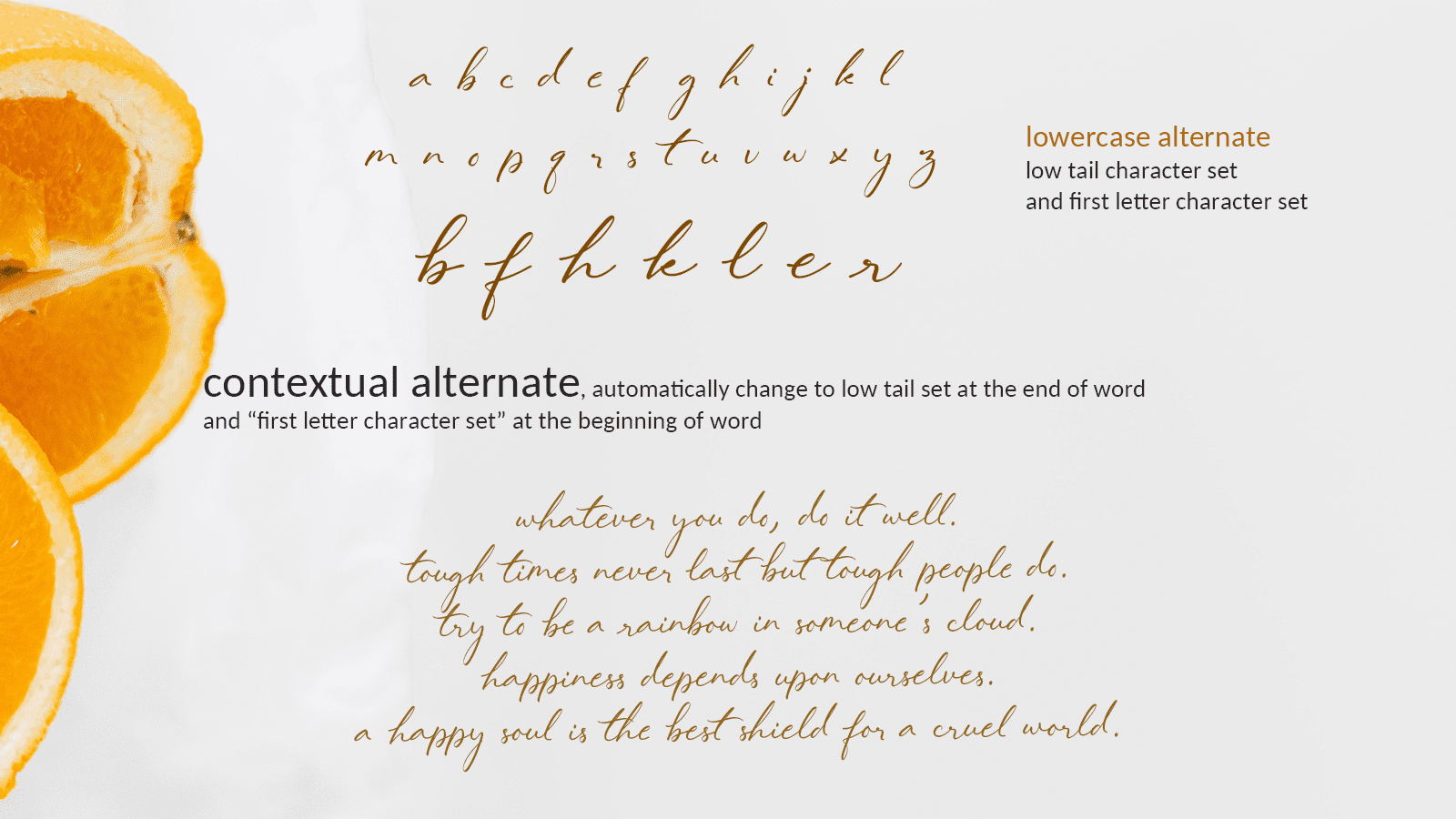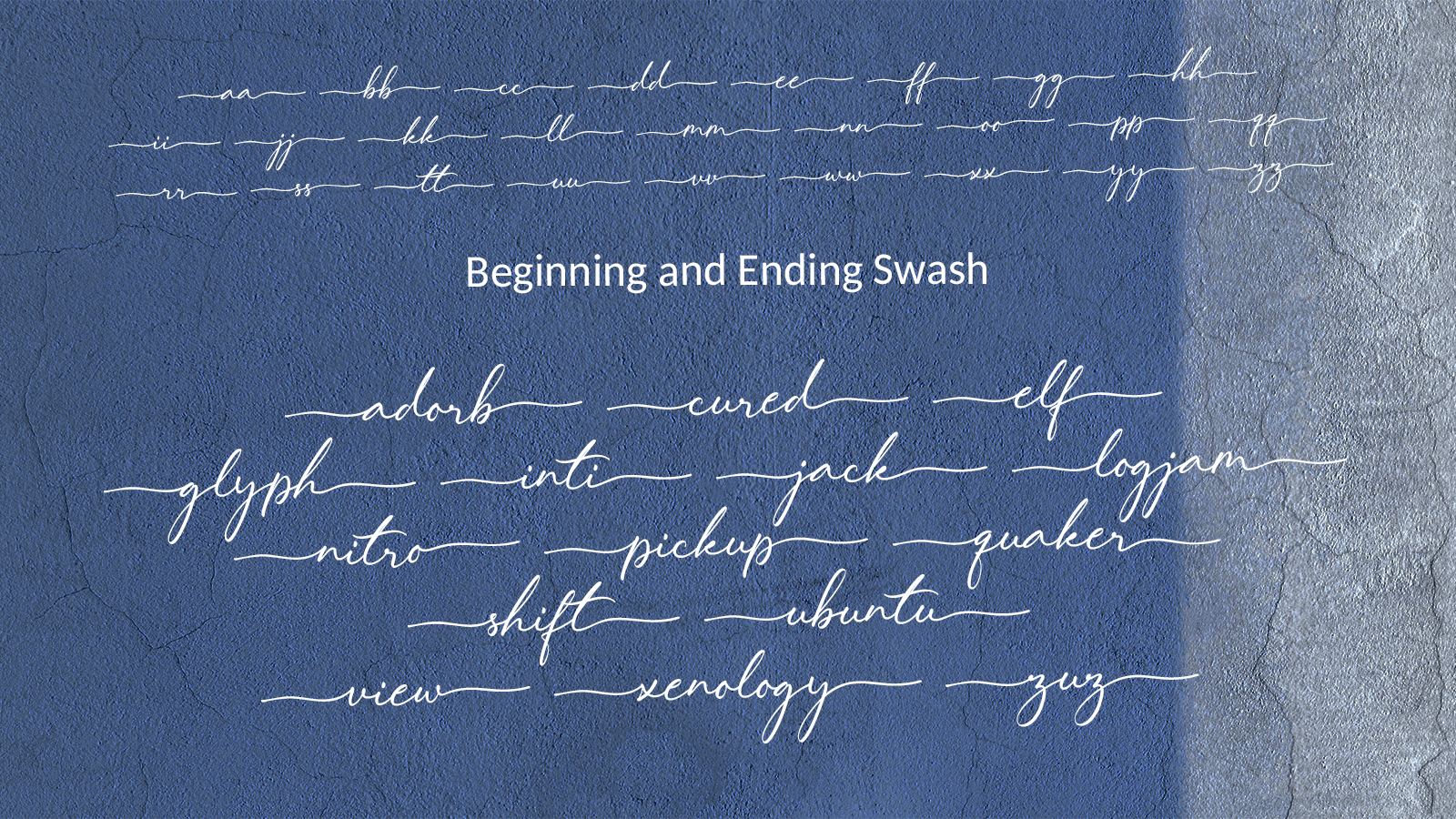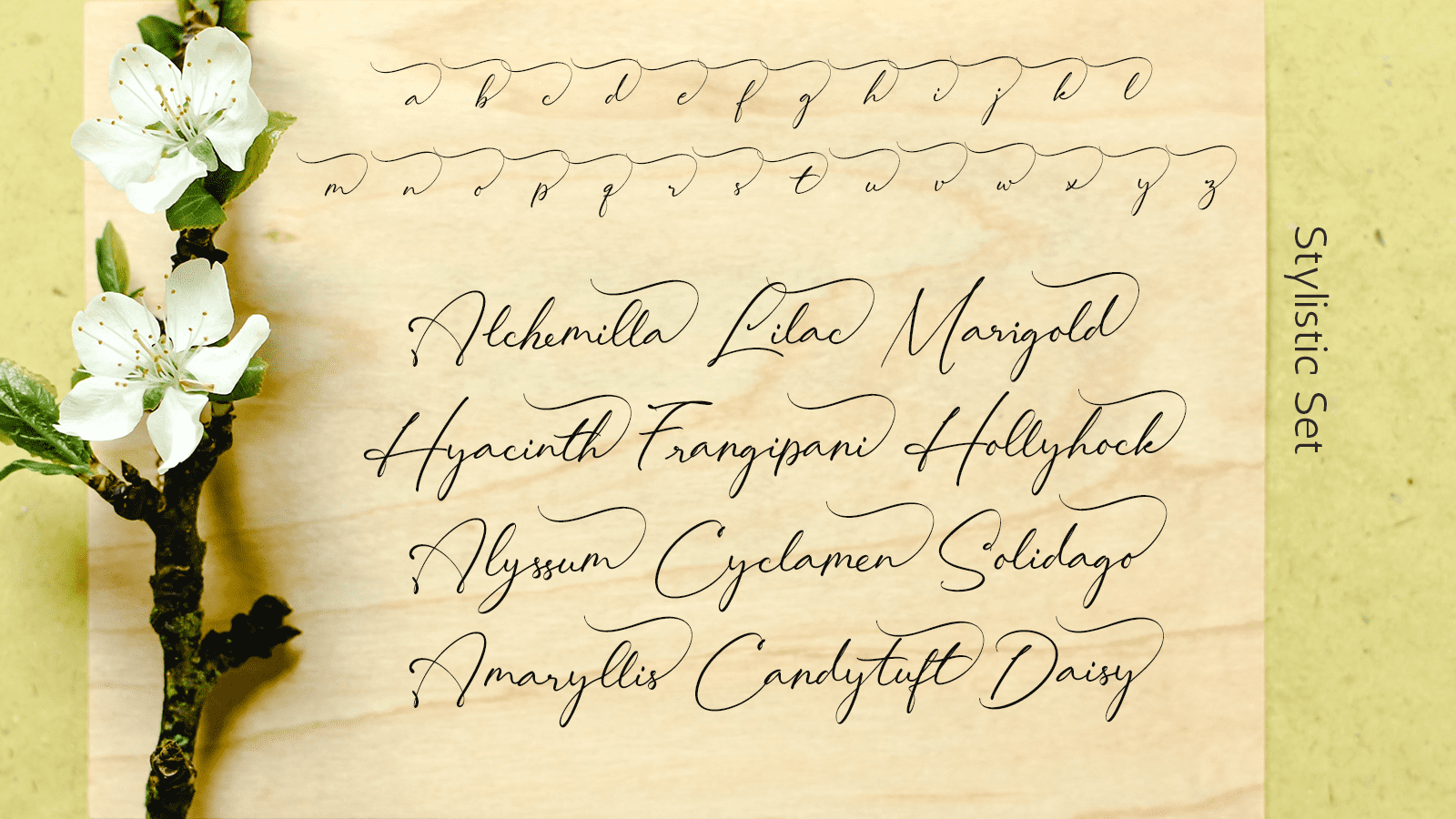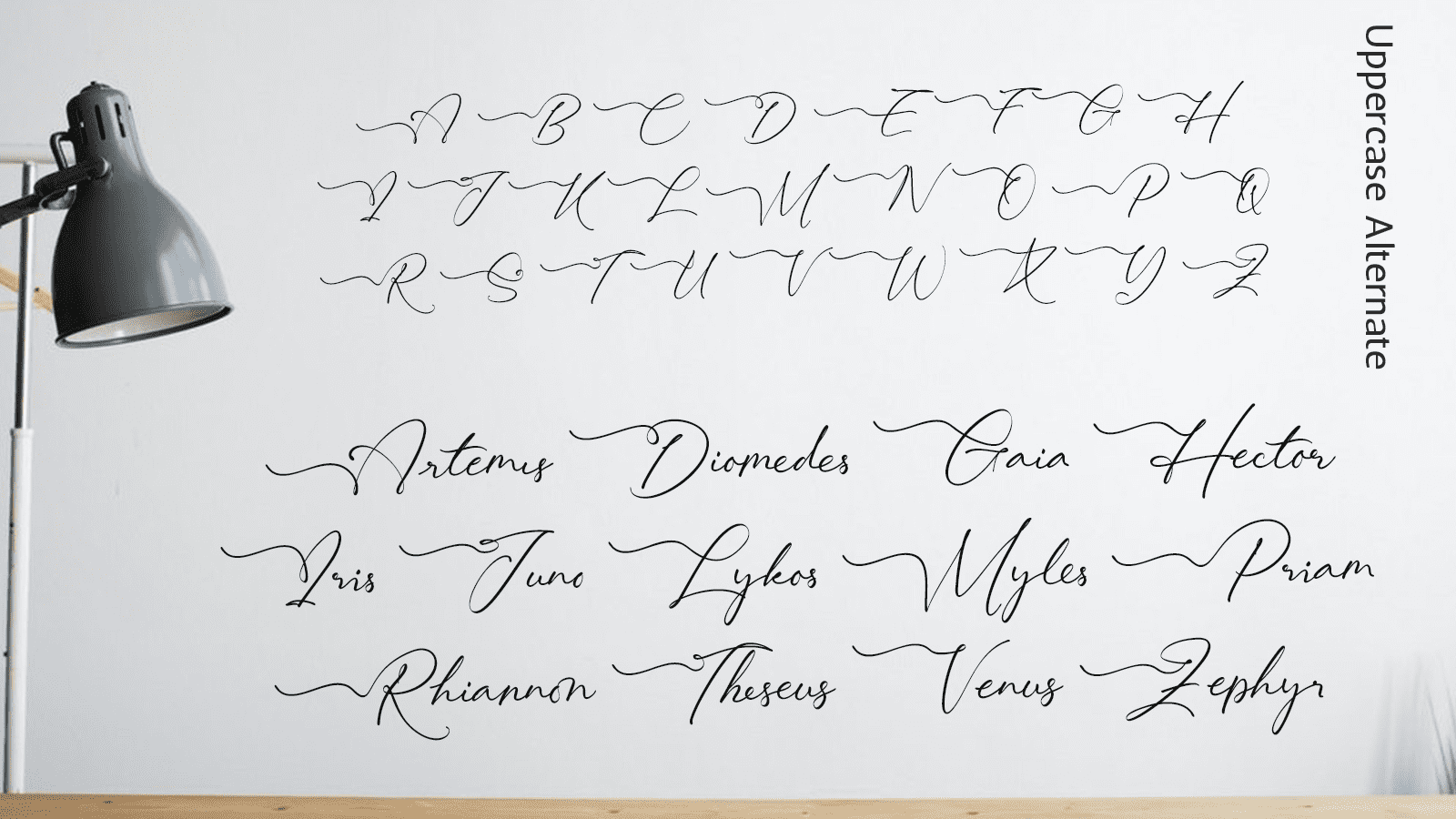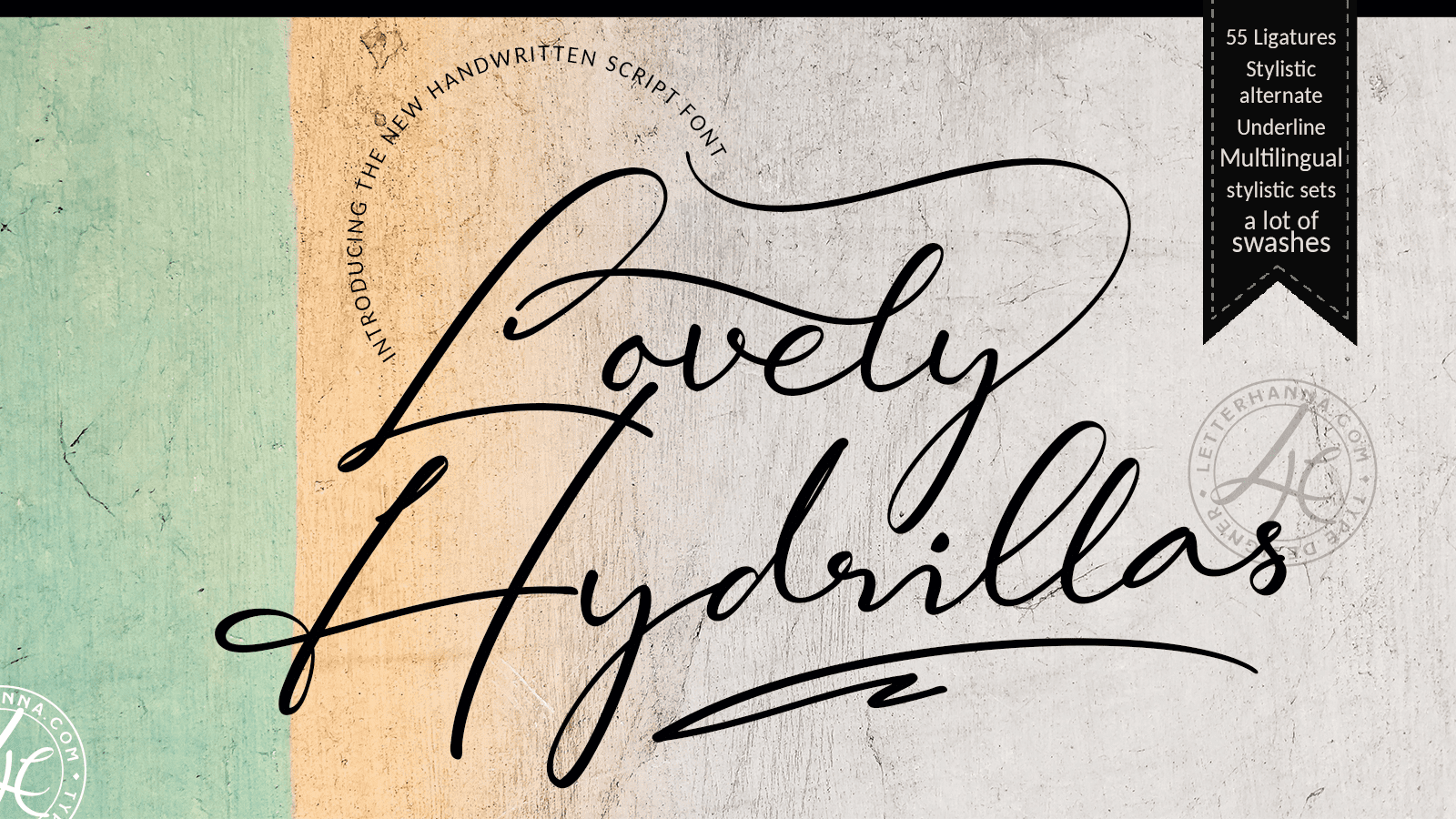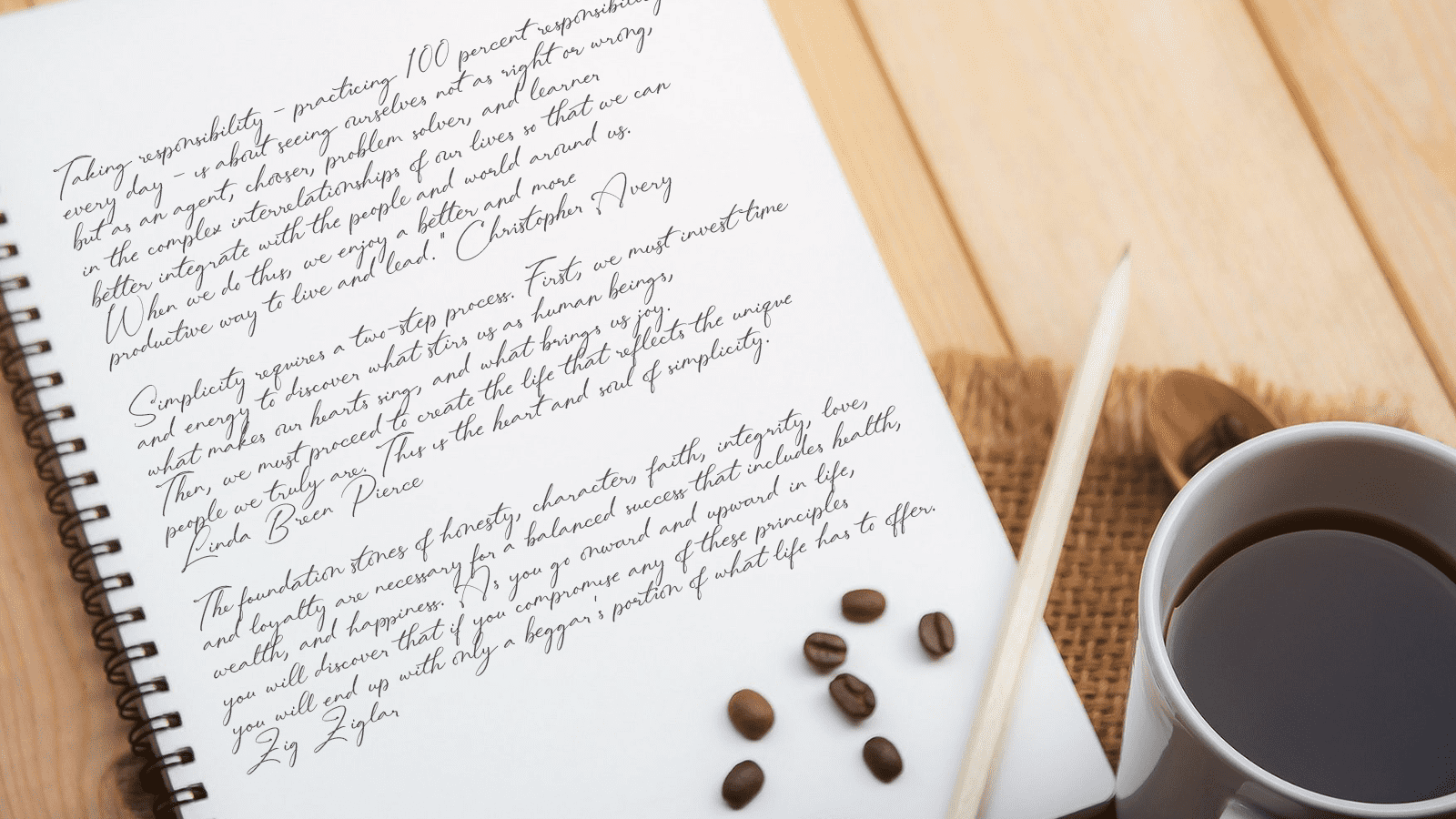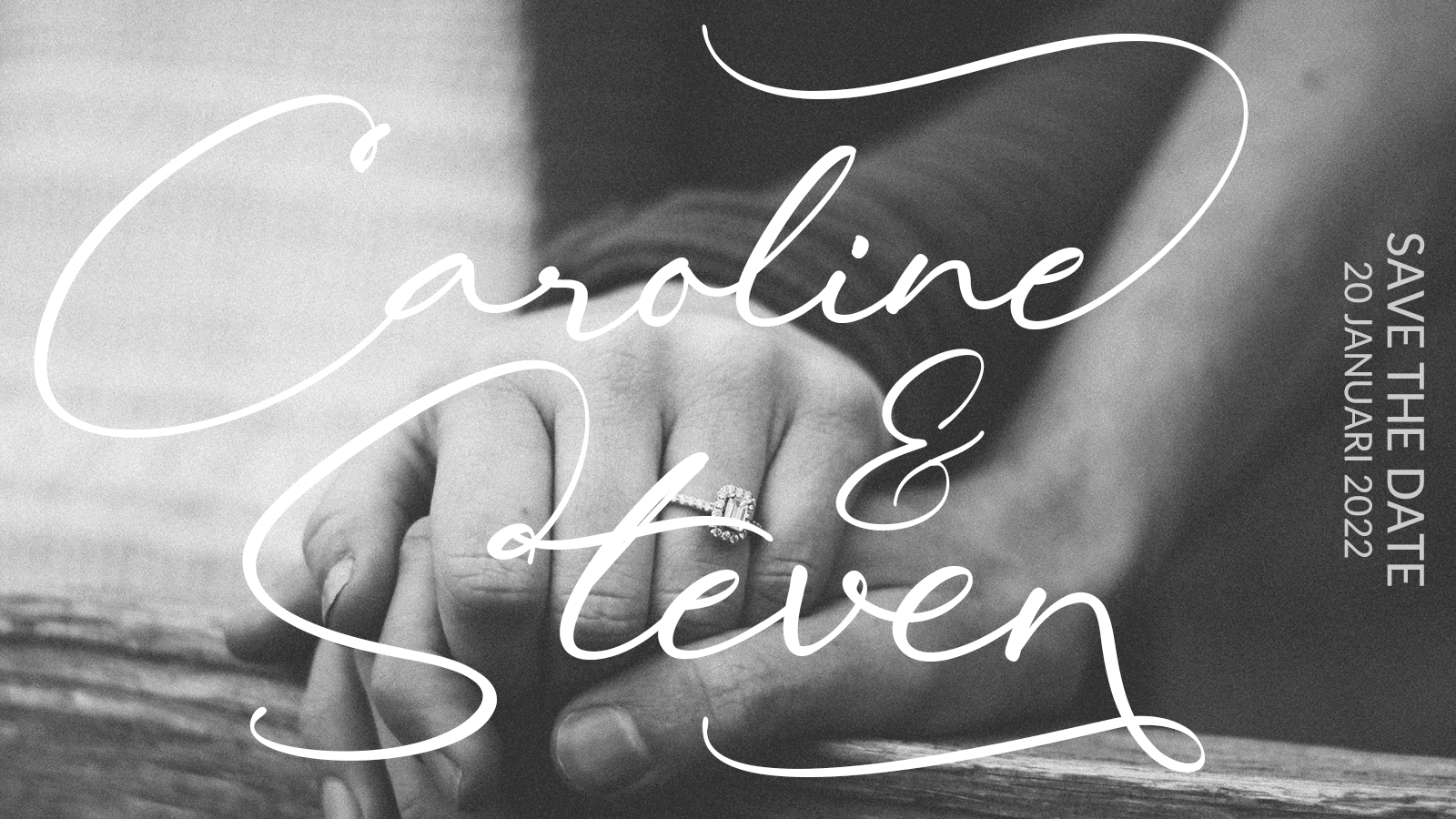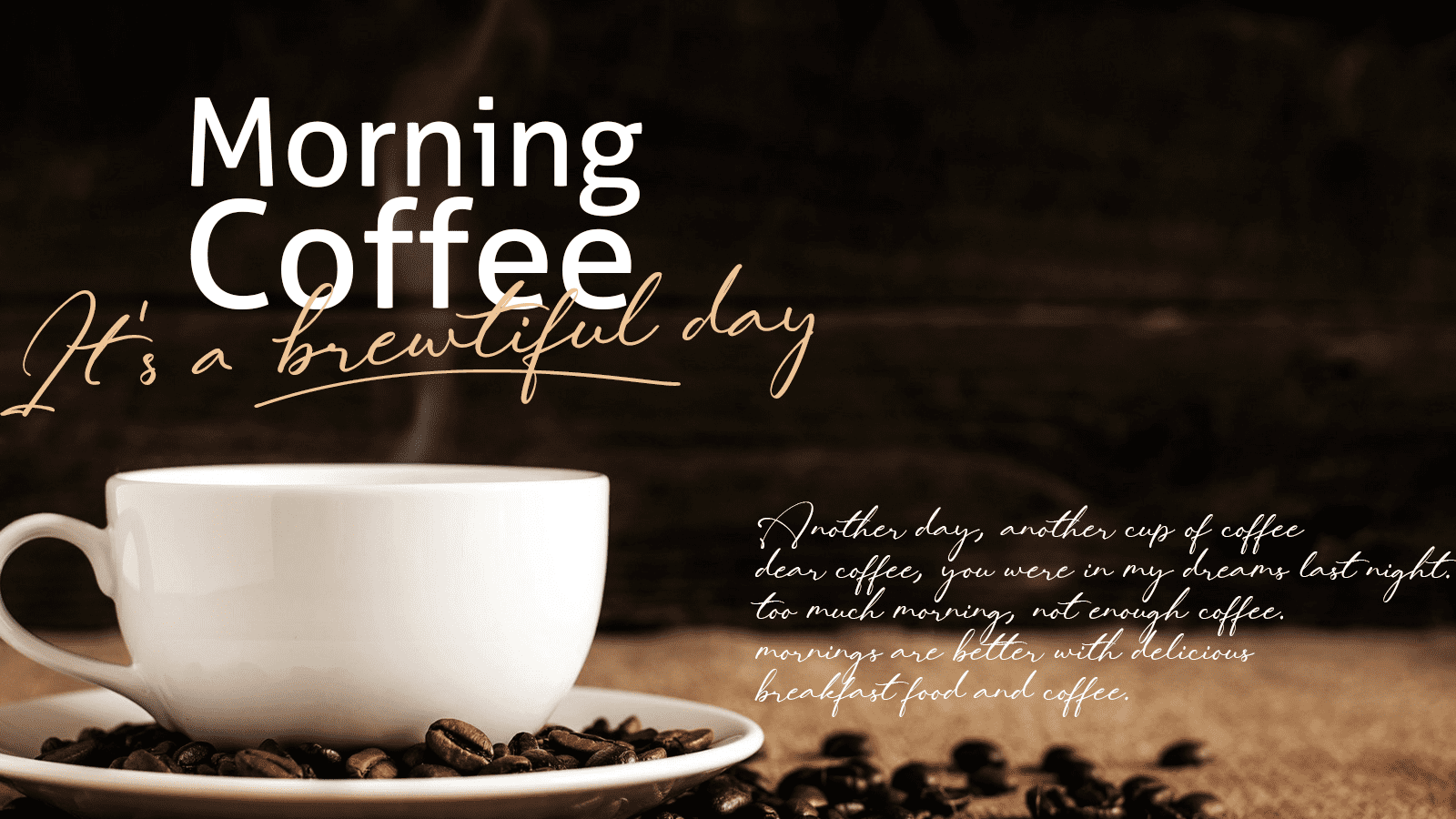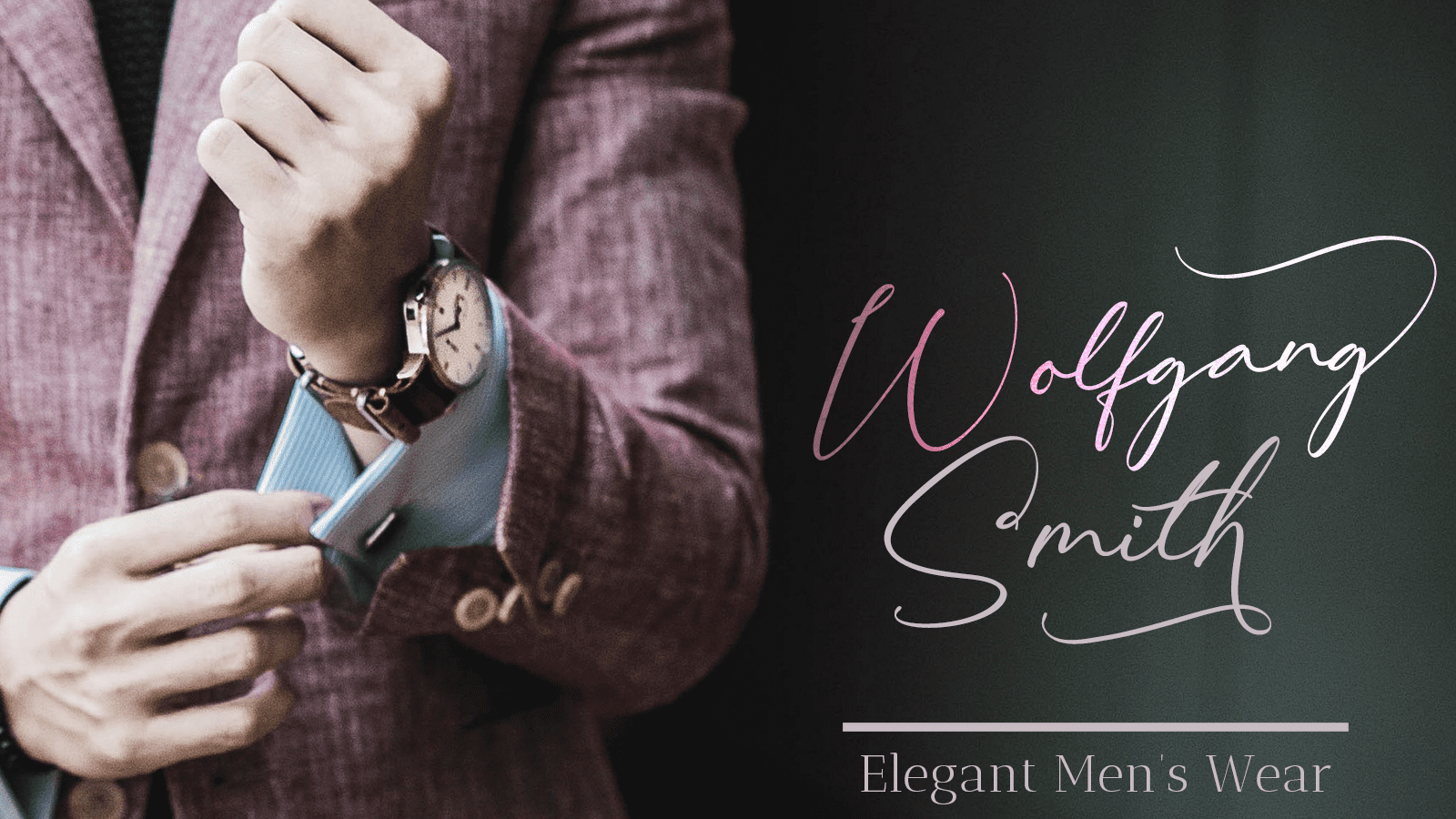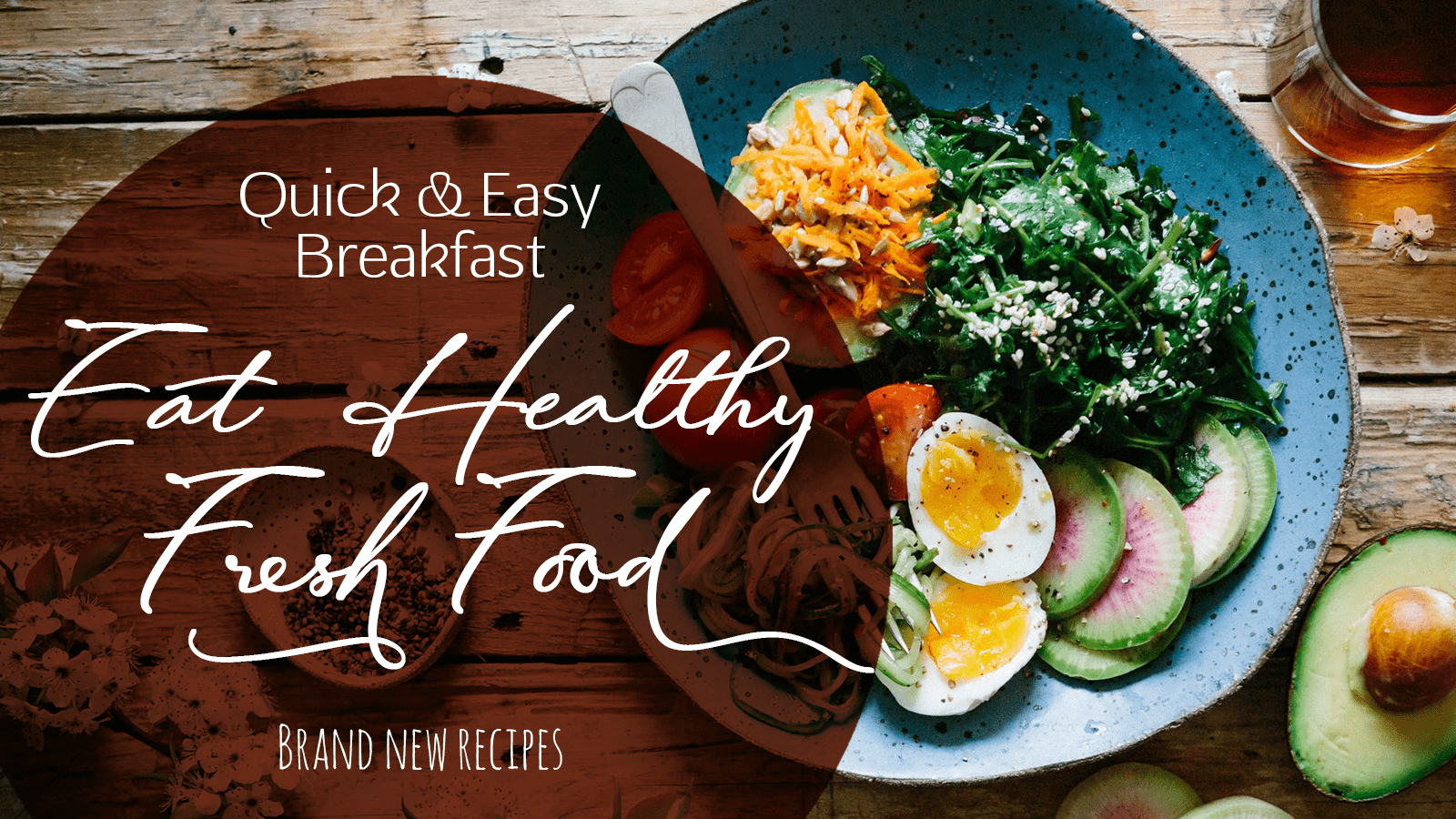
Lovely Hydrillas Font is a modern handwritten font loaded with 55 ligatures for that handwriting look. Lovely Hydrillas Script Font can be used for wedding invitations and wedding calligraphy, feminine or organic logos, small business branding, packaging, and more!
You will get full set of lowercase and uppercase letters, numerals and punctuation, multilingual symbols, lowercase beginning and ending swashes, ligatures, stylistic alternates and extra swashes.
FEATURES
– Uppercase and Lowercase letters
– Numbering and Punctuations
– Multilingual Support
– 55 Ligatures
– Beginning and ending swashes
– Underline swashes
– Stylistic alternate.